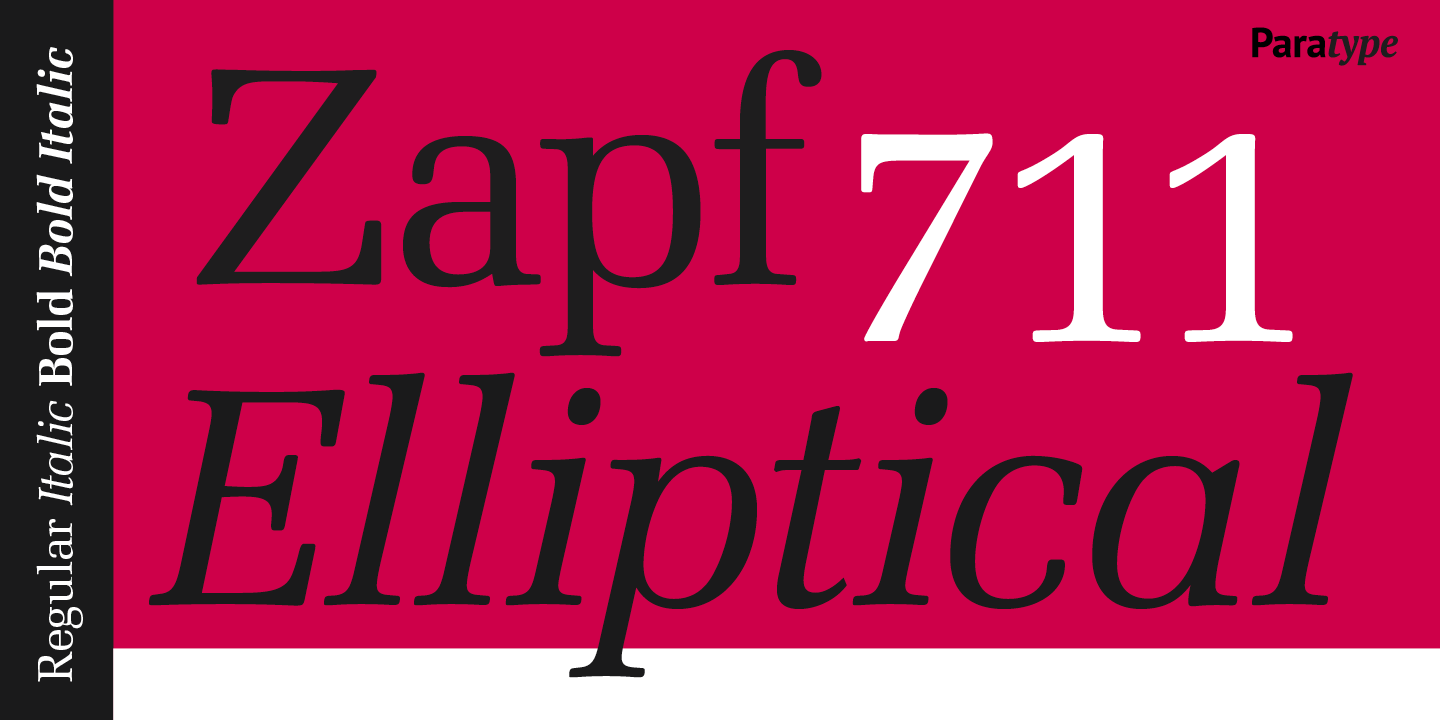
If you’re aiming for elegance with a hint of sophistication, Zapf Elliptical 711 Font Free Download is a timeless choice that adds smooth elliptical curves and refined strokes to your design work. This font shines in invitations, branding, editorial designs, and anywhere you want a touch of class.
Whether you’re creating luxury packaging or stylish headers, Zapf Elliptical 711 Font Free Download provides that perfect balance of flair and legibility. Its distinctive elliptical shapes make your text stand out with subtle elegance.